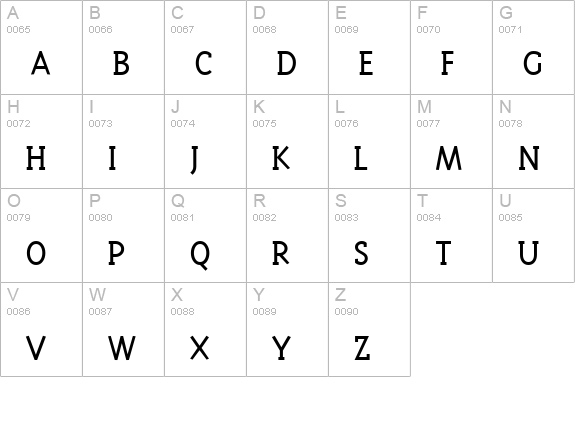
TriplexSerifLightLining Regular Font Details
TriplexSerifLightLining Regular is the standard, neutral variant in the TriplexSerifLightLining typeface family \xE2\x80\x94 well suited to general body text, paragraphs, and standard typographic work.
TriplexSerifLightLining Regular font is a versatile and elegant typeface that exudes sophistication and charm. Its clean and refined lines make it perfect for a wide range of design projects, from logos and branding to editorial layouts and web design. Designed with a modern twist on classic serif fonts, TriplexSerifLightLining Regular boasts a unique combination of simplicity and elegance. Its light weight and delicate serifs create a sense of grace and subtlety, while its clean and legible letterforms ensure optimal readability across various mediums. Whether you're designing a high-end fashion magazine, creating a professional website, or crafting a stylish invitation, TriplexSerifLightLining Regular will elevate your design to the next level. Its timeless appeal and versatility make it a go-to choice for designers seeking a sophisticated and refined font. And the best part? TriplexSerifLightLining Regular is available for free download at FontsMarket.com. You can easily access this font and enhance your design projects without any cost. With its freely available license, you can use it for personal and commercial purposes, making it a valuable addition to your font library. So why wait? Download TriplexSerifLightLining Regular today and start creating stunning designs with this elegant and versatile typeface. Take advantage of its timeless appeal and give your projects a touch of sophistication and class.